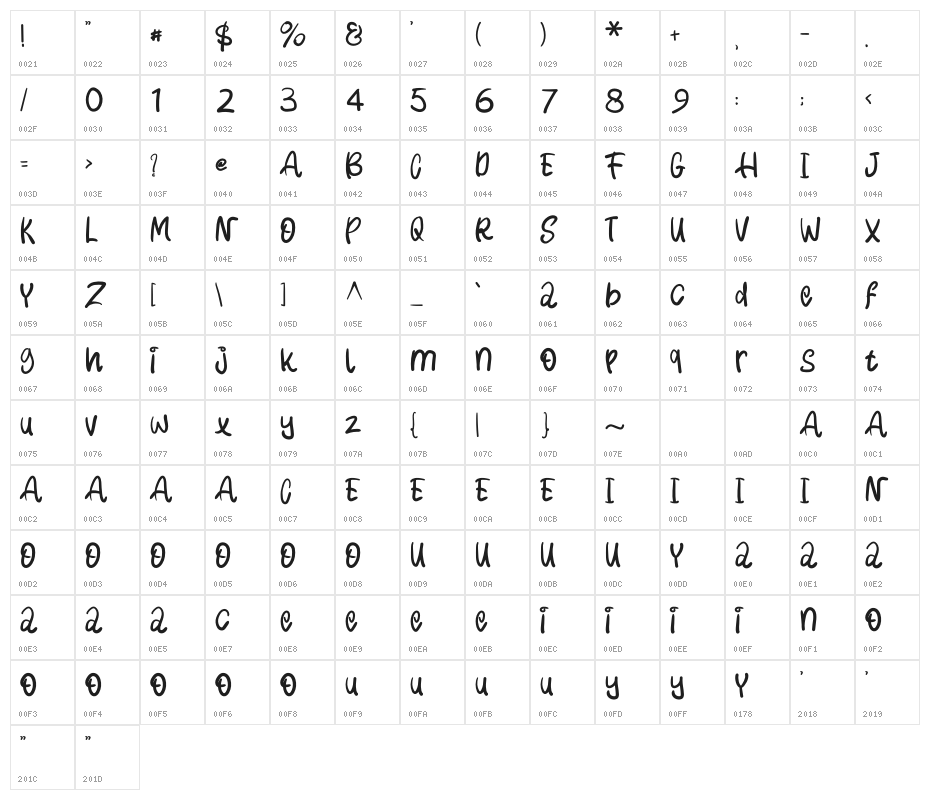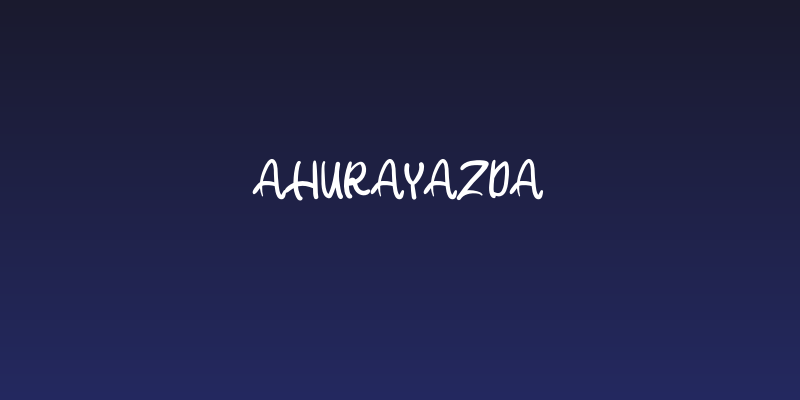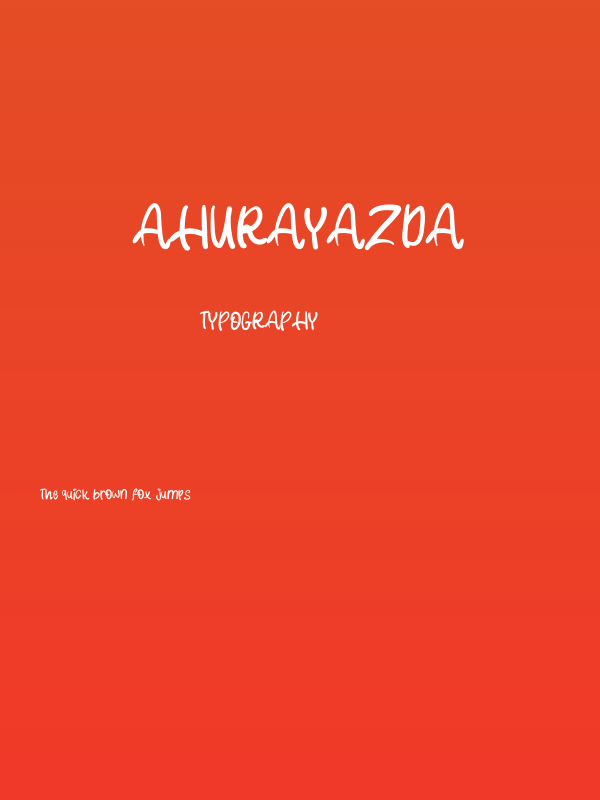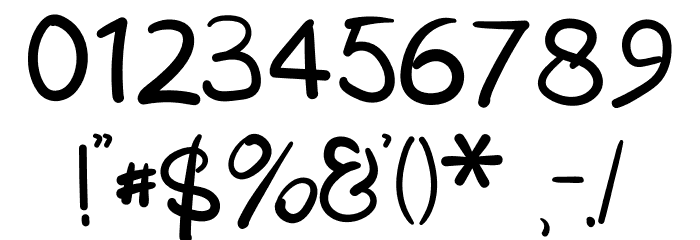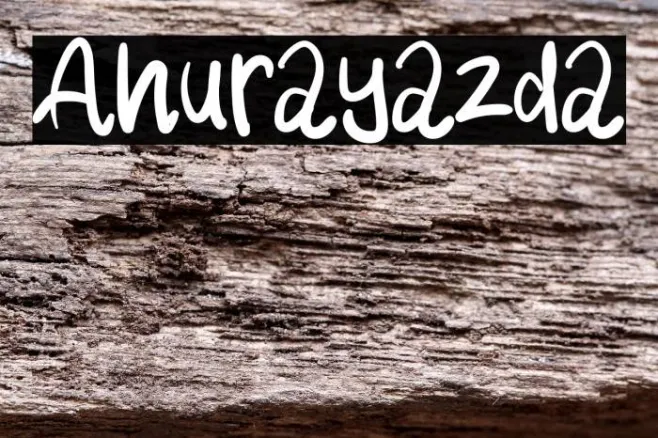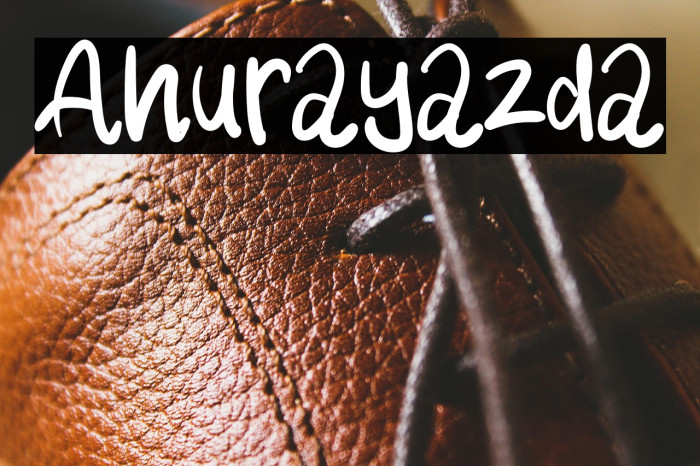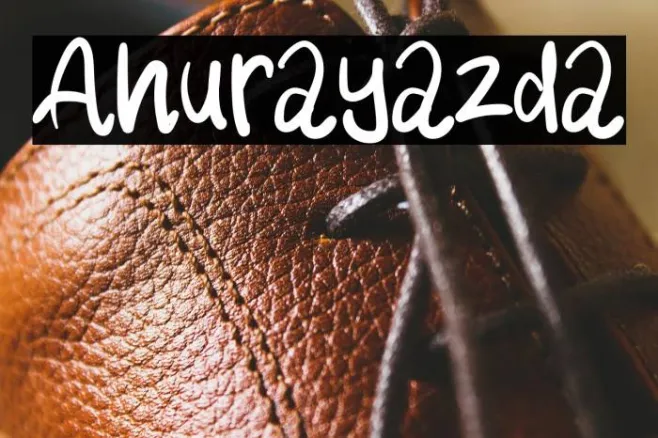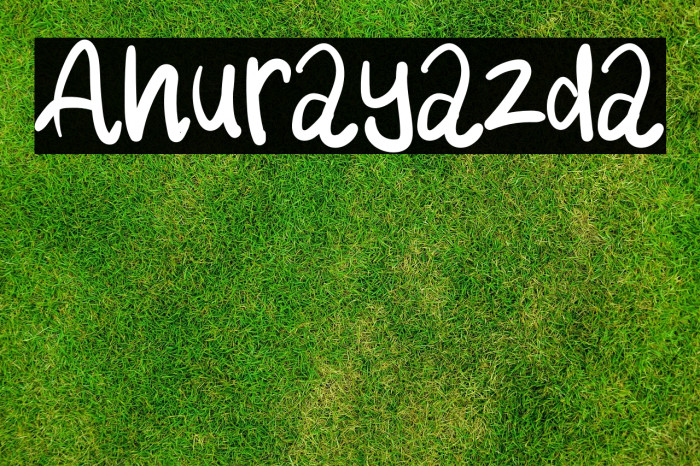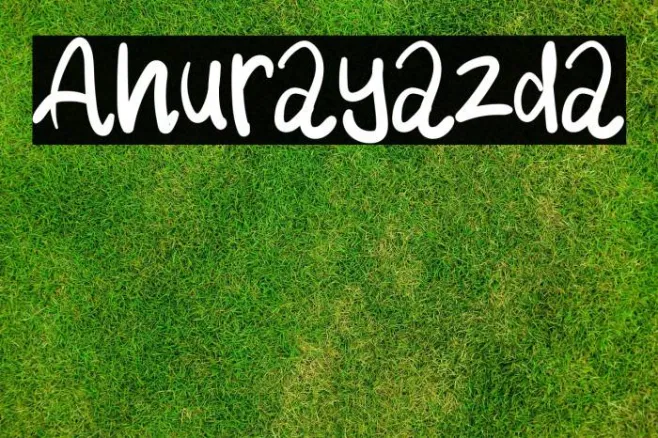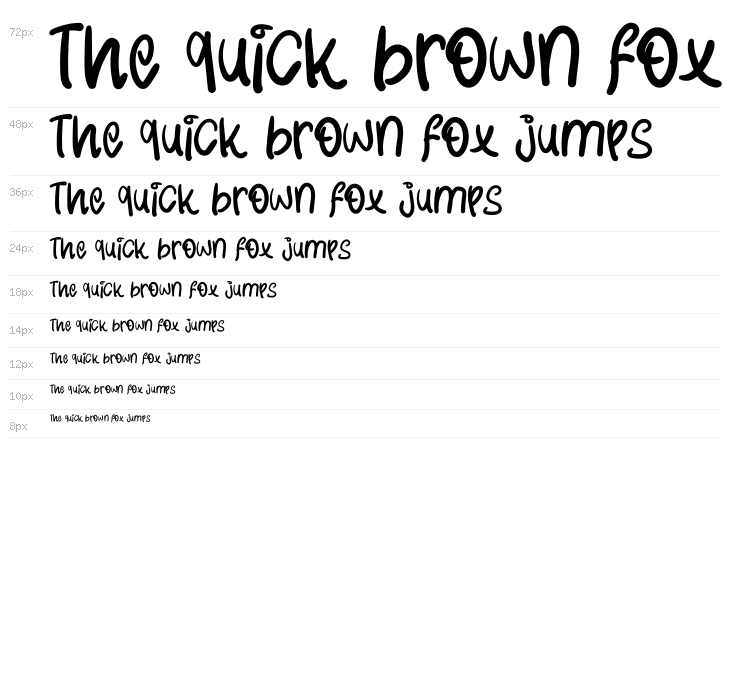
Ahurayazda Font
Ahurayazda Description
This font features a playful and energetic script style with a hand-drawn appearance. The letters are bold and rounded, giving a friendly and approachable feel. The uppercase and lowercase characters maintain a consistent flow, with slight variations that add to the handwritten charm. The numerals and special characters are crafted with the same lively style, ensuring uniformity across all glyphs. The strokes are thick and consistent, providing a strong presence on the page. This font is ideal for projects that require a personal touch, such as invitations, greeting cards, or playful branding.
AHURAYAZDA UPPERCASE
AHURAYAZDA LOWERCASE
AHURAYAZDA OTHER CHARS
| Overall Style | Playful, Energetic |
| Proposed Projects | Ideal for invitations, greeting cards, playful branding, and personal projects. |